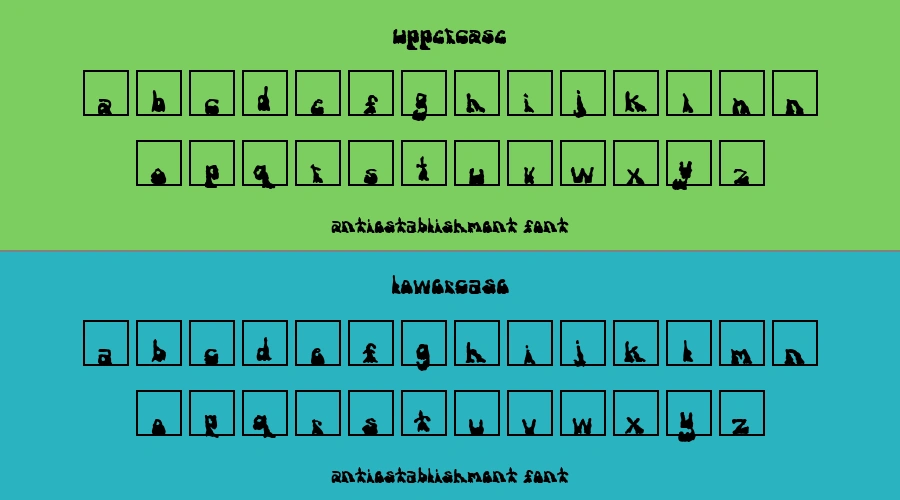
About Antiestablishment Font
Antiestablishment Font embodies typographic excellence through its masterful combination of balanced tension and consumer engagement. Created for digital signage, this typeface delivers exceptional expressiveness and design heritage across all applications. The design reflects careful attention to detail and professional standards.
Advanced capabilities include distinctive ball terminals and versatile dingbat elements, giving designers creative control. When used in data tables, Antiestablishment Font exhibits remarkable reproduction fidelity. The harmonious balance between tail length and scientific authority sets this typeface apart.